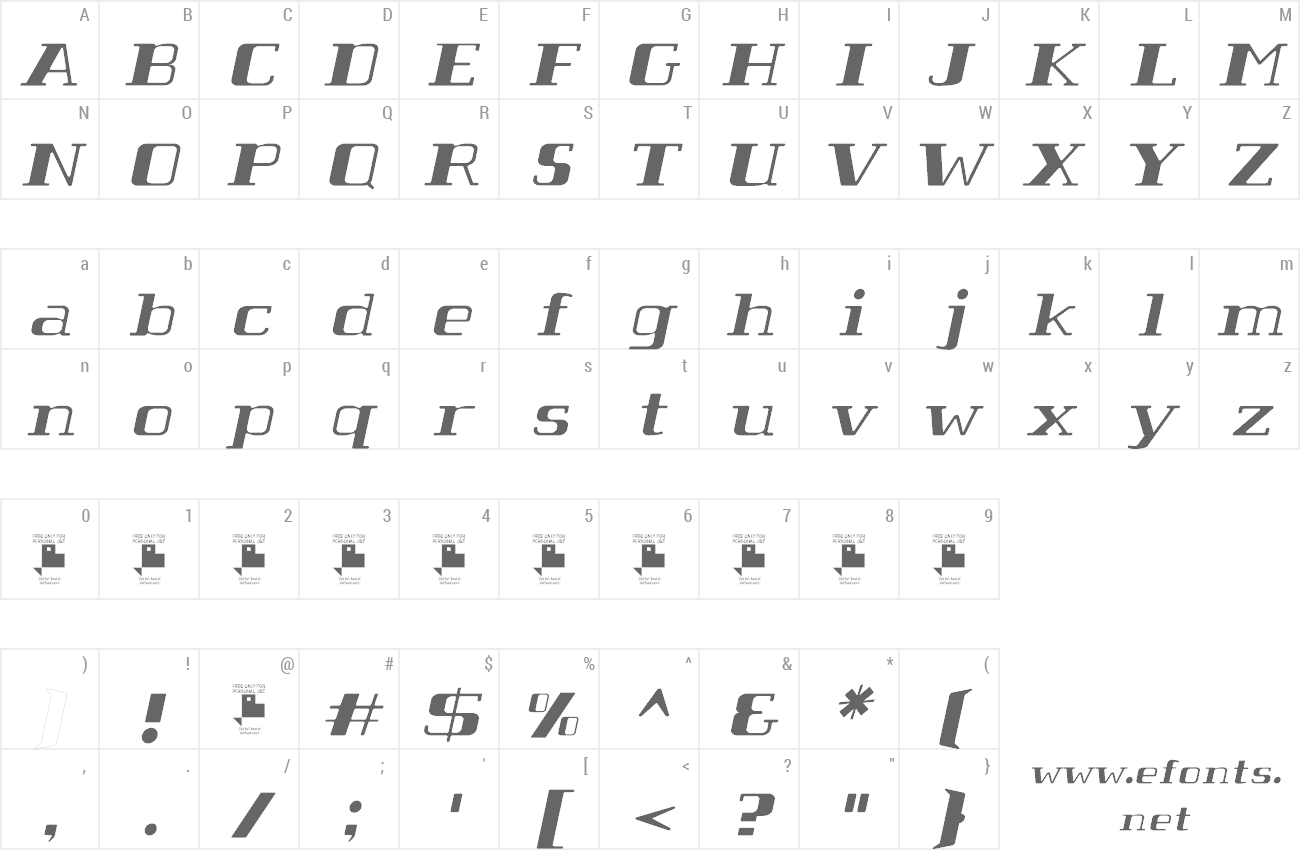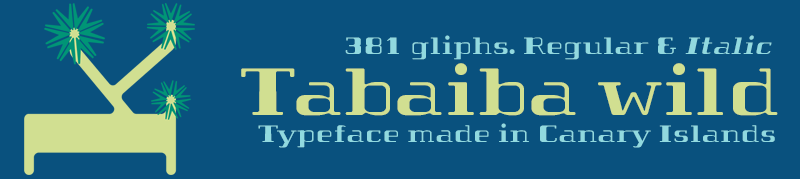
Tabaiba wild es mi última fuente hecha antes de irme de las Islas Canarias, es una mezcla de fuente techno y decó con slab serifs redondeados para diseño gráfico =========== Tabaiba wild is my ultimate font made before leaving the Canary Islands, is a mixture of techno and Deco font with rounded slab serifs for graphic design. =========== • Descarga gratis las versión completa desde mi web. • Free download the full version in my website. • Números disponibles en mi web • Numbers available on my website • Only for personal use. Sólo para uso personal. • Licencia comercial disponible / Available commercial license.>> http://defharo.com/fonts/tabaiba-wild-font/ |